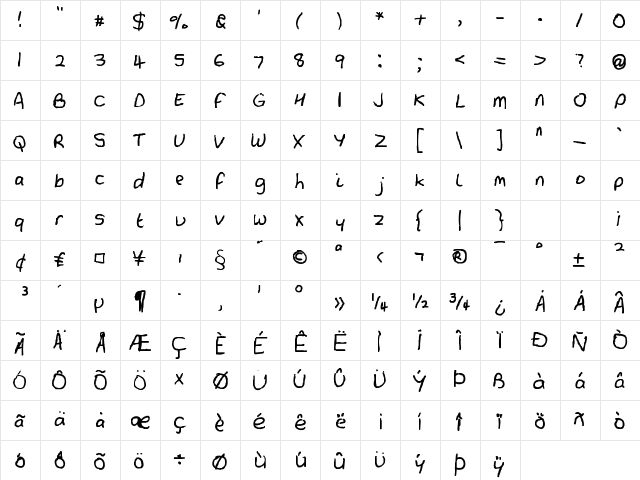
HandFont$- Regula Font Preview
HandFont$- Regula
Design Context for HandFont$- Typeface
HandFont$- flows with the natural rhythm of handwritten lettering, making it ideal for designs that call for warmth and personal expression.
Font Pairing: Combine HandFont$- with a simple geometric sans for maximum contrast — the tension between flowing curves and clean structure is a classic typographic pairing.
Pro Tip: Use HandFont$- for short runs of text — names, titles, or taglines. Extended body copy in script faces tires the eye quickly.